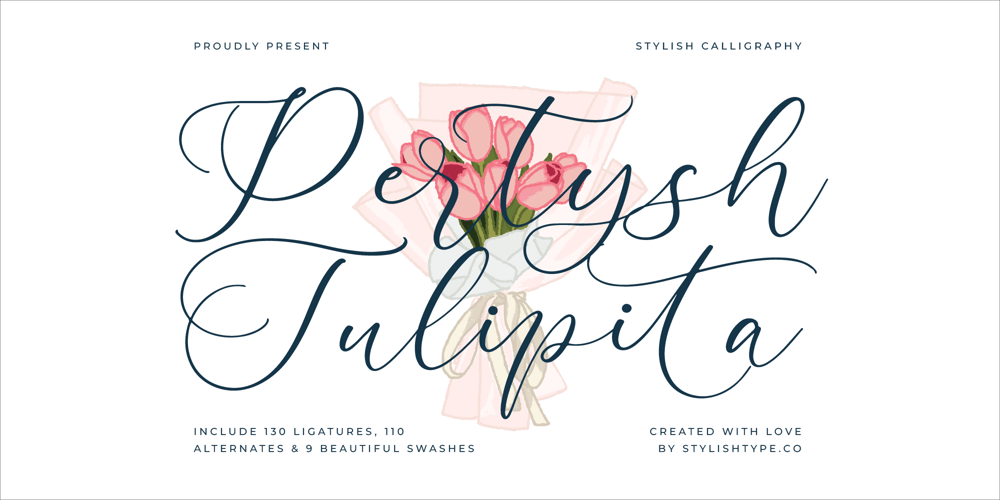
Pertysh Tulipita
Pertysh Tulipita font
Pertysh Tulipita Font Family was designed by Heru Utama Putra and published by Stylishtype Studio. Pertysh Tulipita contains 2 styles and family package options. Pertysh Tulipita – Stylish Calligraphy , from Stylishtype , Suitable for any projects such as: logos, branding projects, homeware designs, product packaging, mugs, quotes, posters, shopping bags, t-shirts, book covers, name card, invitation cards, greeting cards, label, photography, watermark, special events, and all your other luxury and beautiful projects that need a Luxury Script taste.